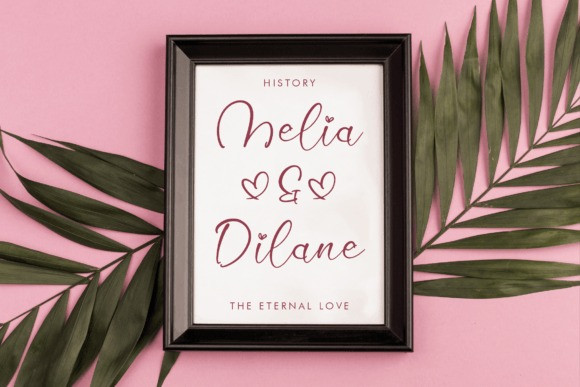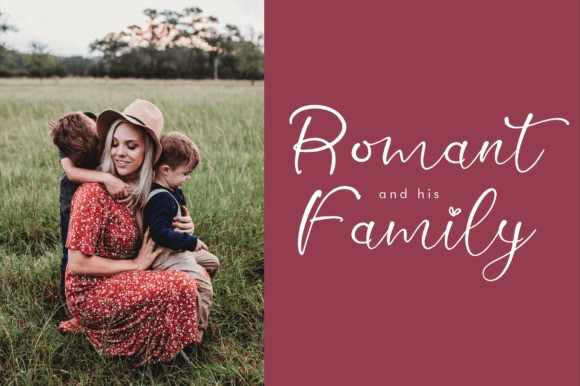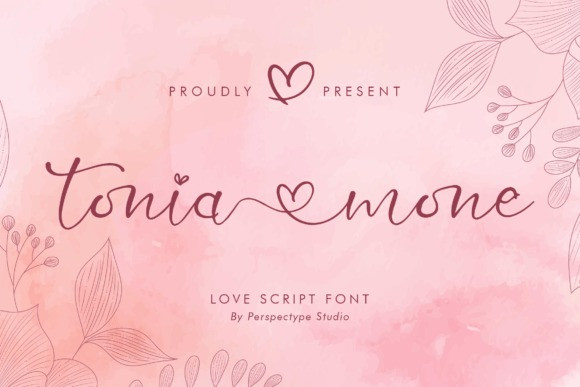
Tonia Mone Font
Tonia Mone Font is a sweet and cursive handwritten font. This gentle font will look gorgeous on a variety of design ideas. It will add a joyful and romantic touch to each of your projects!